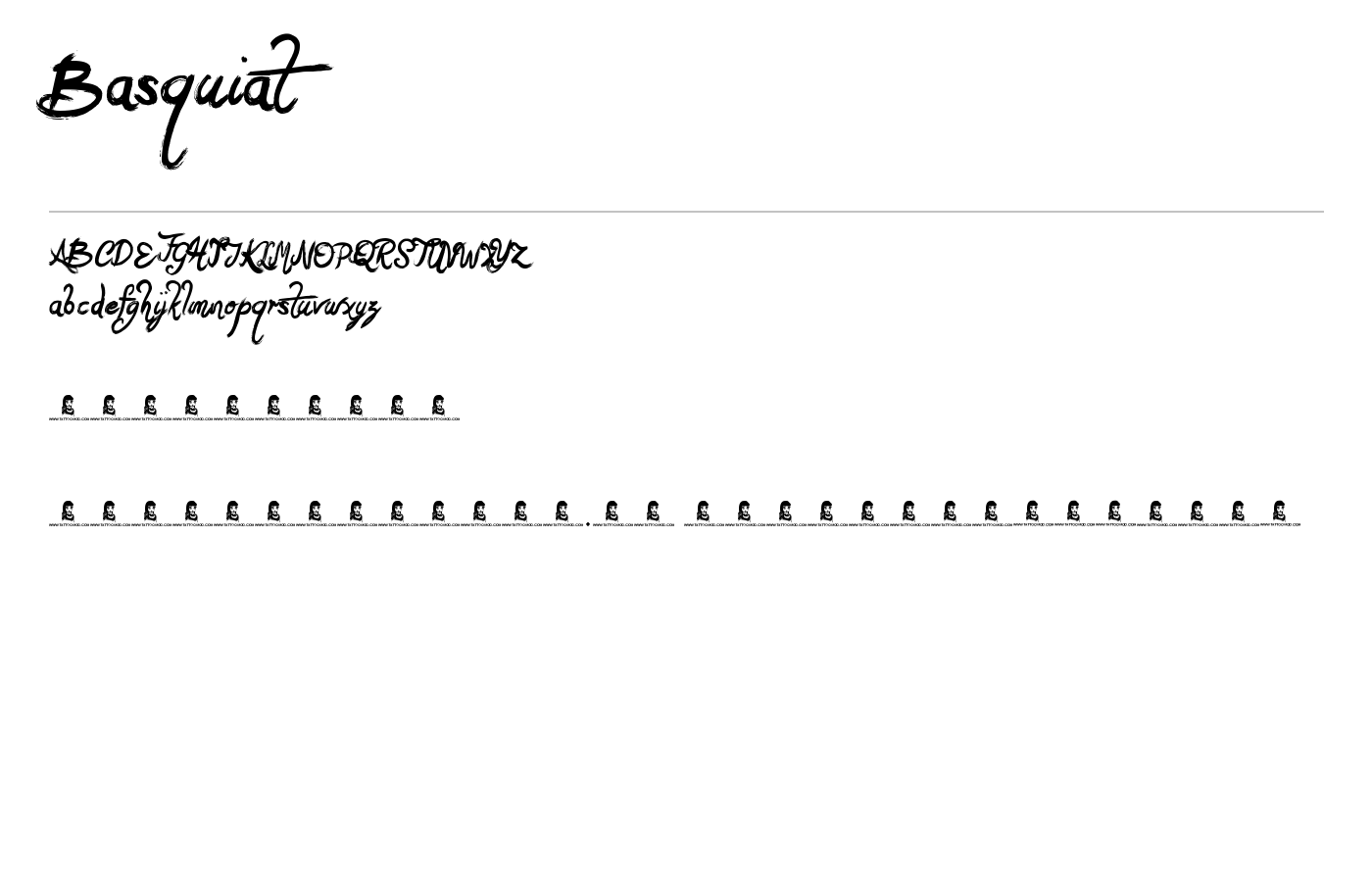
Basquiat Font is a bold, expressive script font that captures a raw, artistic energy with its brush-like strokes and fluid, hand-drawn style. It features a lively, slightly irregular texture that gives it a unique and dynamic feel, perfect for creative projects, posters, and branding that seeks to convey individuality and a vibrant, modern edge. This font works well in contexts where a strong artistic personality and informal elegance are desired.
Basquiat Font
About Basquiat Font
| Font family | Basquiat Font |
| Designer | Jonathan S. Harris |